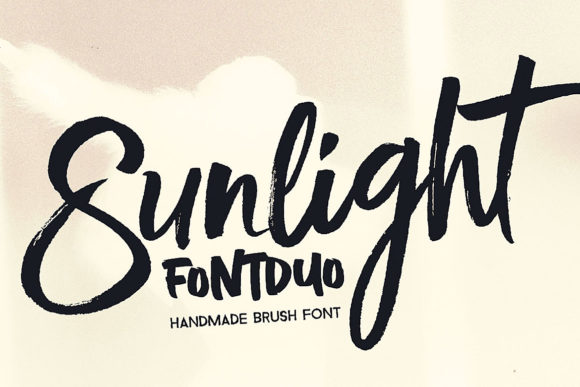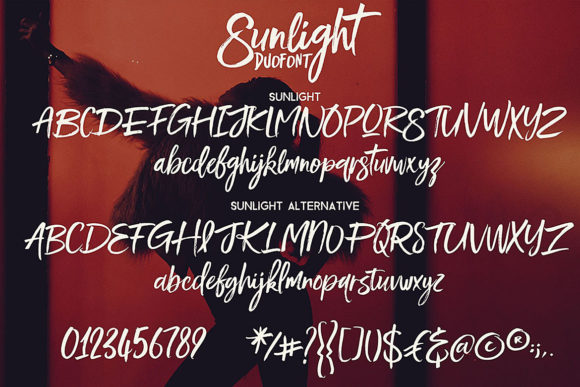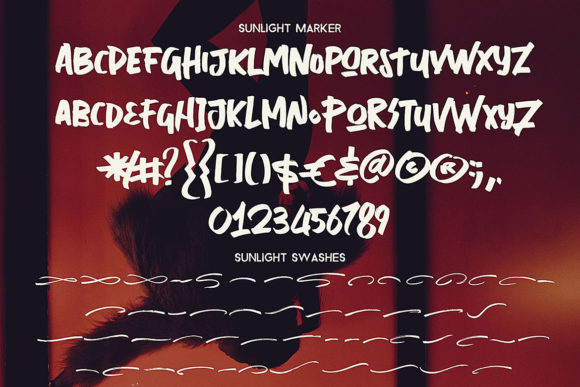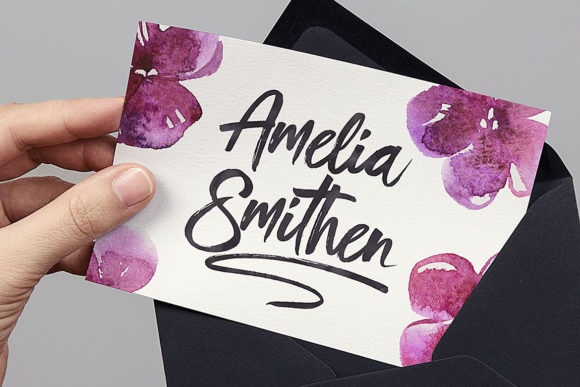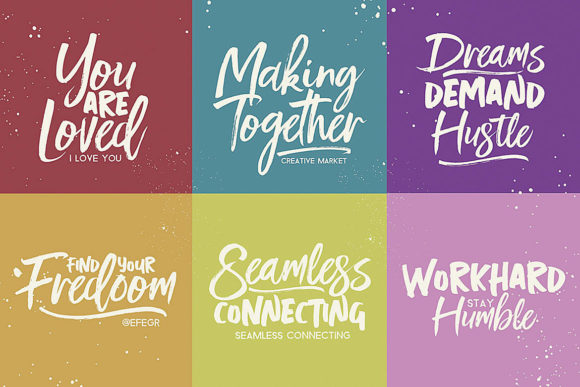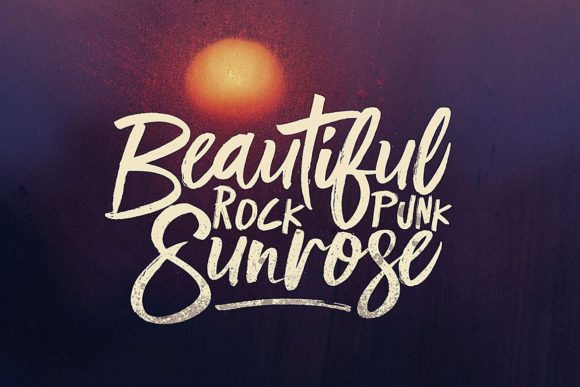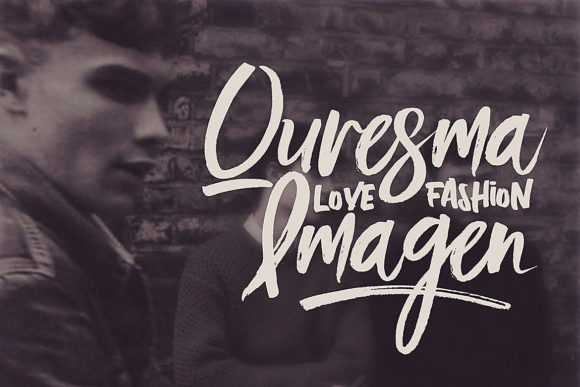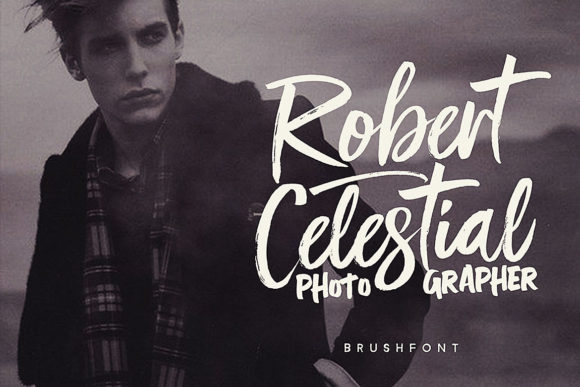
Sunlight Duo Font
About Sunlight Duo Font
The Sunlight is a cool handwritten brush duo. It includes 3 variations with swashes which are perfect for grunge and artistic projects.